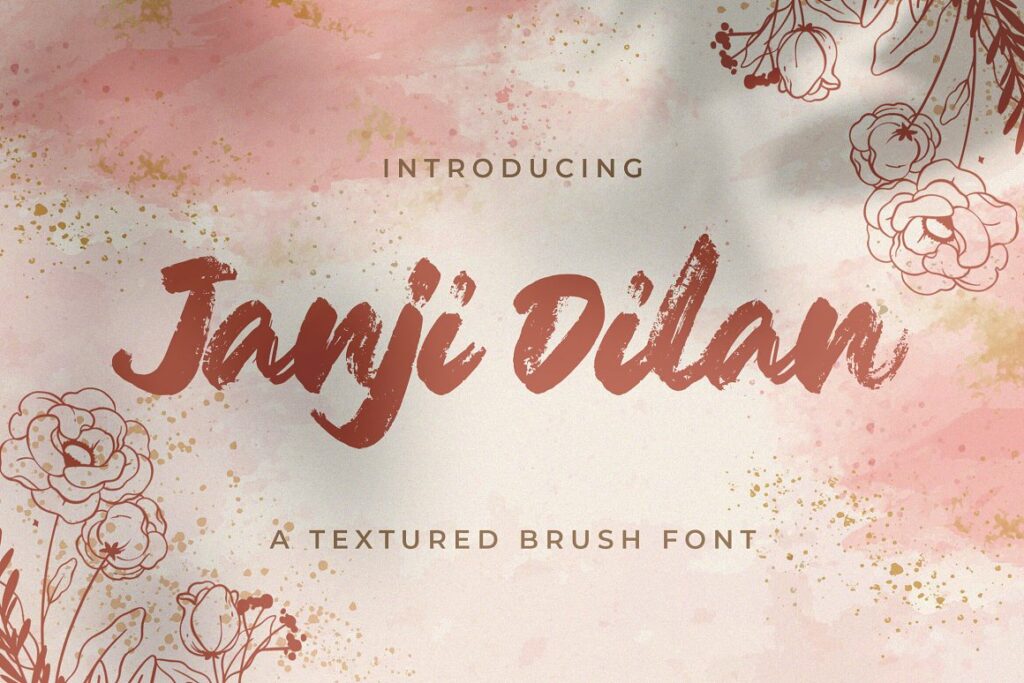
Janji Dilan Font
Janji Dilan Font is a cool and brush display font. Whether you are using it for cartoon-related designs, children games, quotes, titles, brand names, book covers, posters, or just any creation that requires a touch of joy, this font is a great choice.
Janji Dilan Textured Brush Font